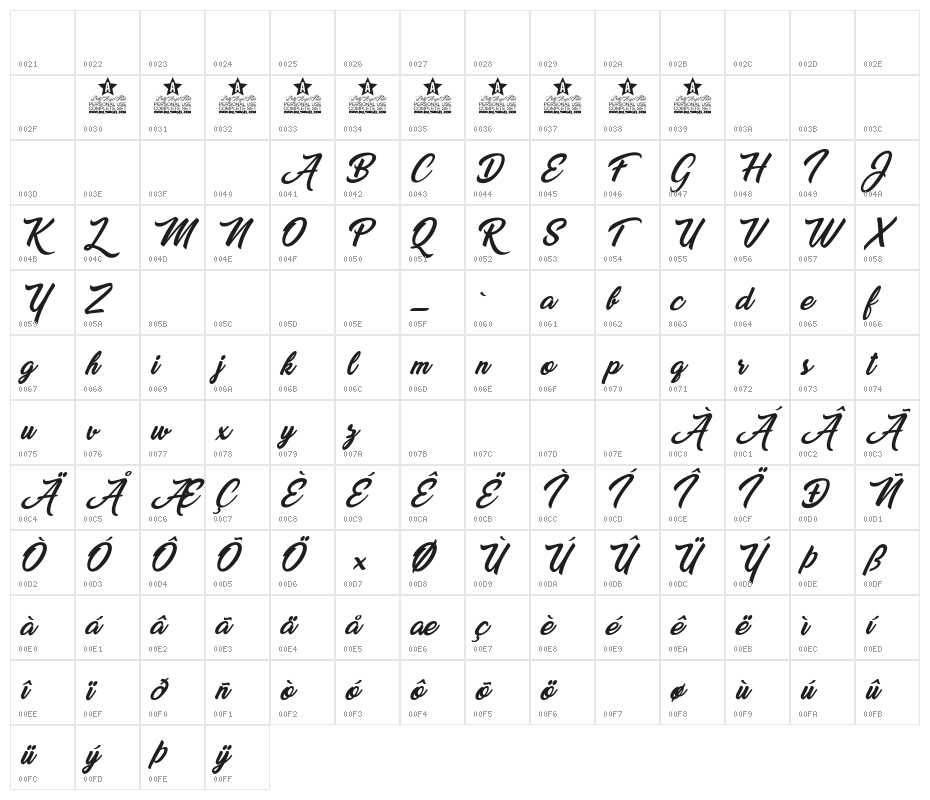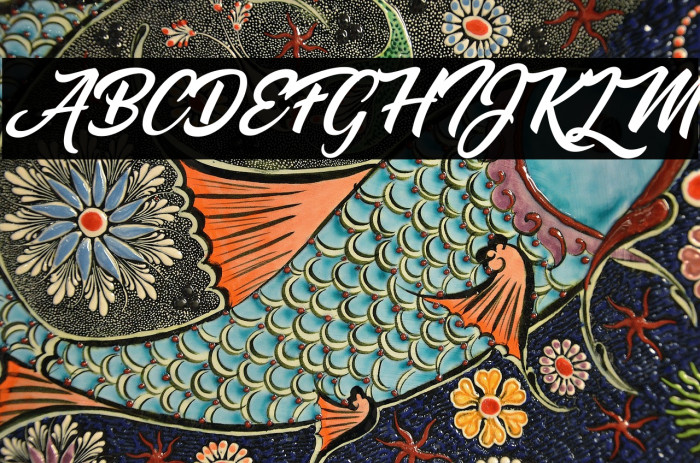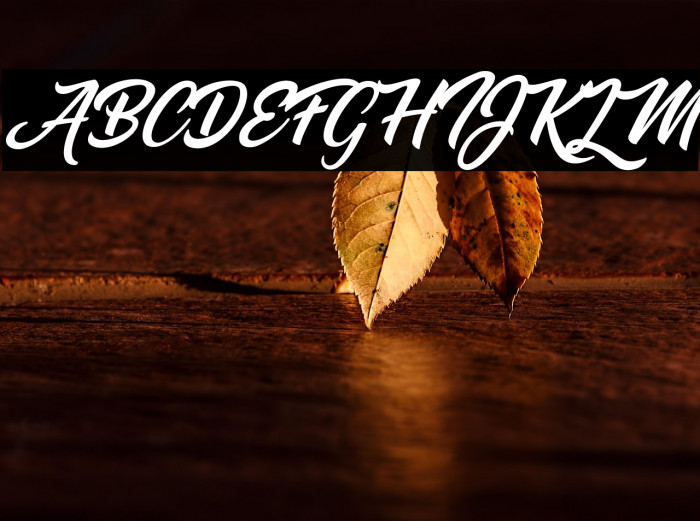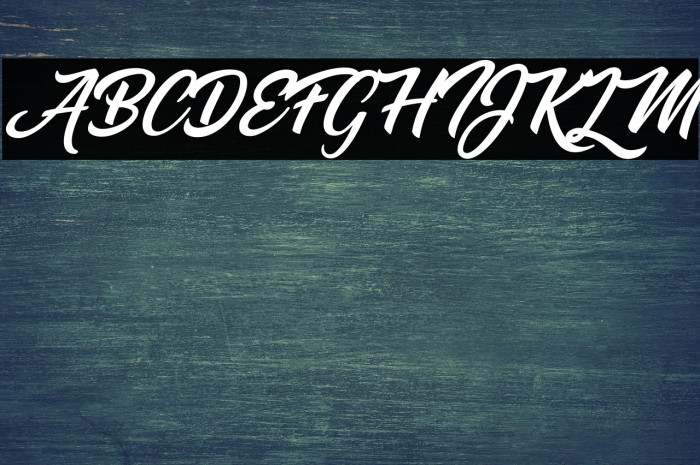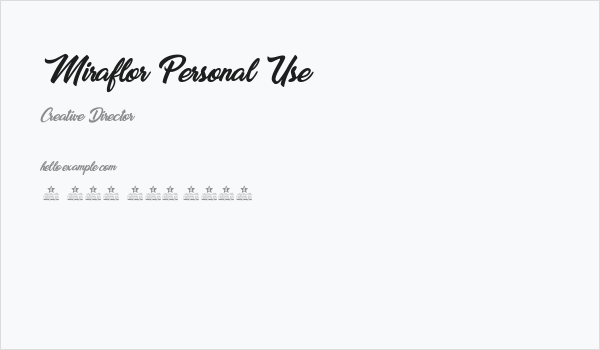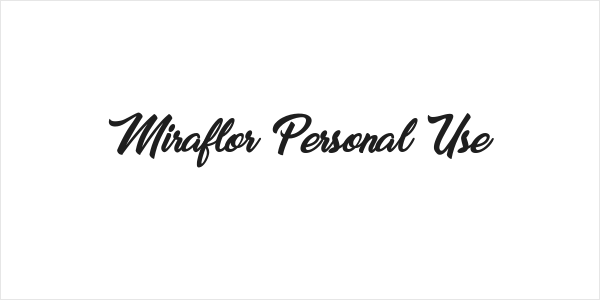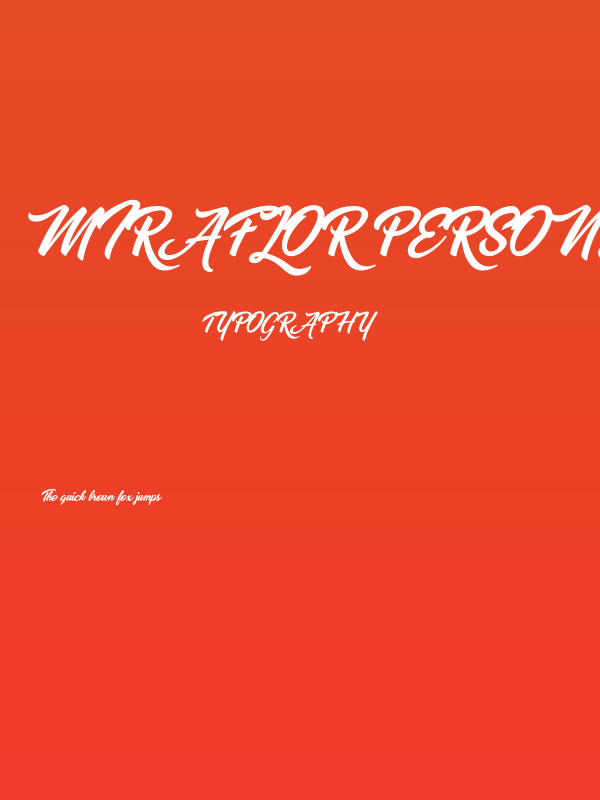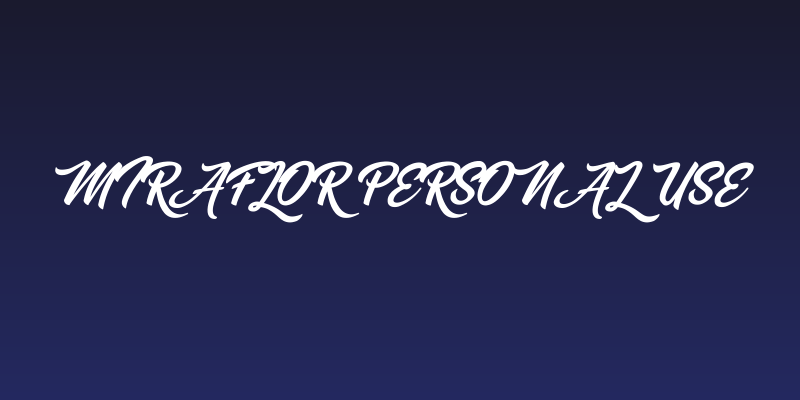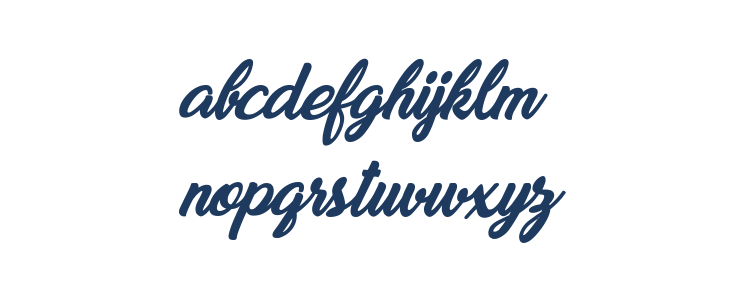
Miraflor Personal Use Font
Miraflor Personal Use Description
This font features a bold and flowing script style, characterized by its elegant and dynamic curves. The uppercase letters are particularly striking, with sweeping lines and a sense of movement that adds a touch of sophistication. The lowercase letters maintain this fluidity, ensuring a cohesive look across all text. The font's design is reminiscent of traditional calligraphy, yet it maintains a modern flair, making it versatile for various design needs. The characters are closely spaced, enhancing the connected, handwritten feel. This font is ideal for projects that require a personal touch, such as invitations, branding, or any creative work that benefits from a stylish and expressive typeface.
| Proposed Projects | Ideal for invitations, branding, logos, and creative projects needing a personal, stylish touch. |